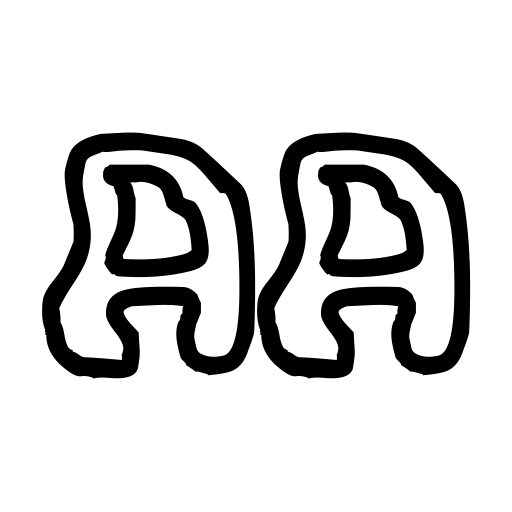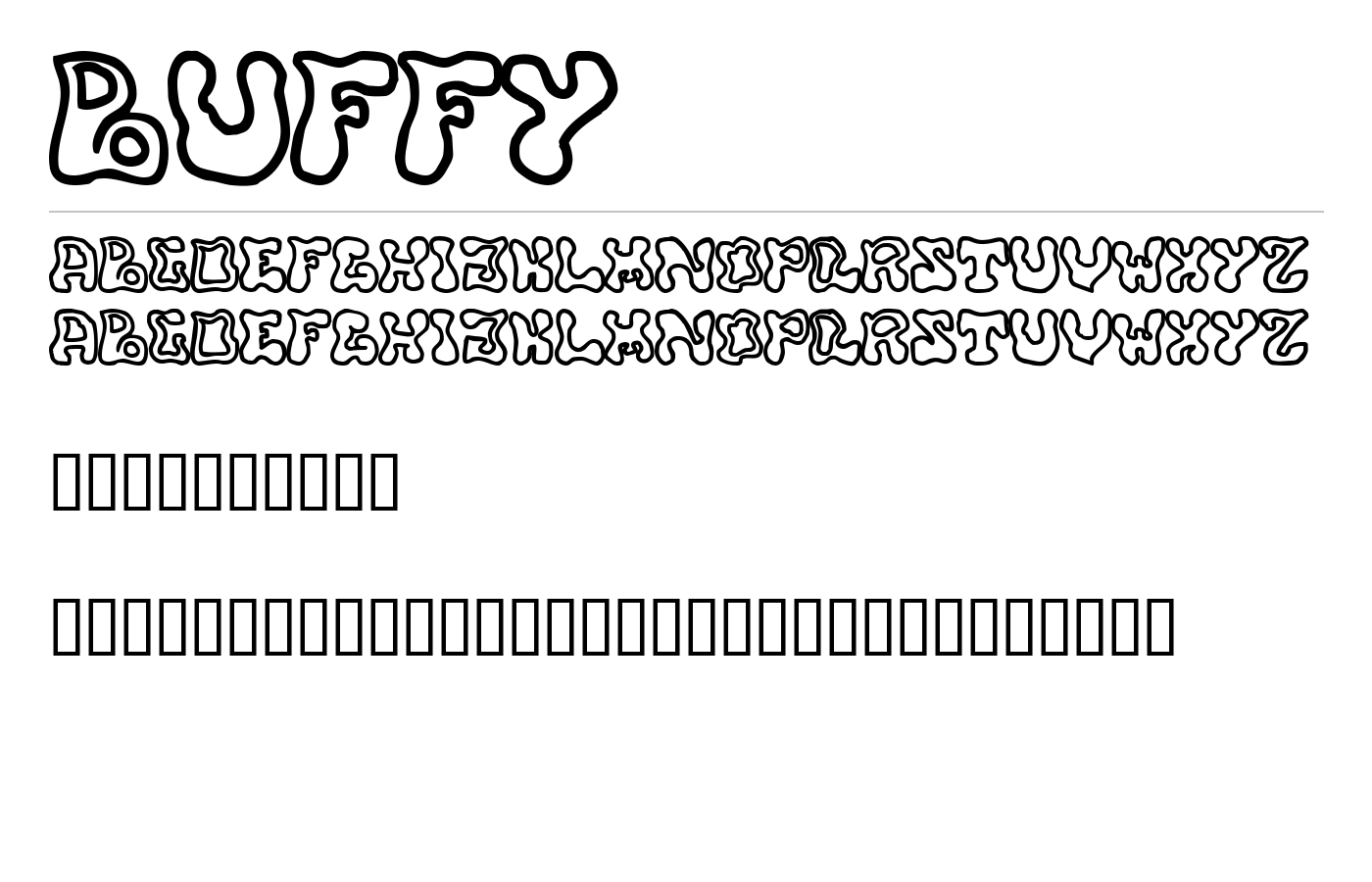
Buffy is a playful, bold display font with a hand-drawn, bubbly style that feels fun and informal. Its irregular, rounded letterforms and thick outlines give it a lively, cartoon-like character perfect for eye-catching headlines, children’s designs, or creative branding that wants to convey whimsy and friendliness. This font works best in casual, expressive contexts where personality and a lighthearted mood are key.
buffy Font